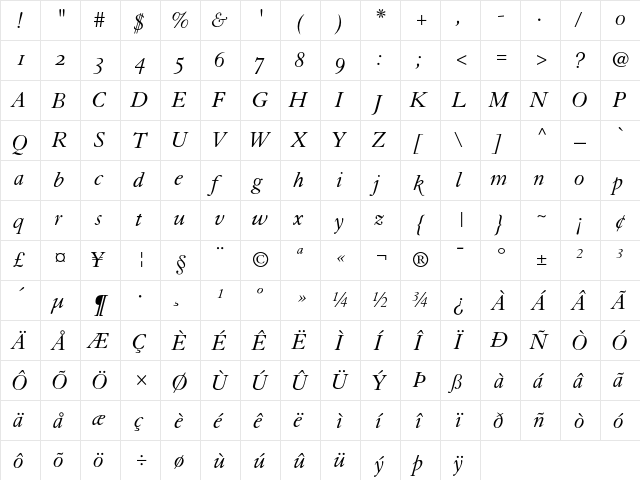
Granjon Italic Old Style Figures
Design Context for Granjon Typeface
Granjon takes a measured approach to typography — its balanced proportions and neutral character make it a reliable workhorse for both digital and print work. The slanted form adds forward momentum and visual energy.
Pro Tip: Try Granjon for annotation and caption copy alongside an upright companion — the contrast in angle creates a dynamic but ordered typographic system.